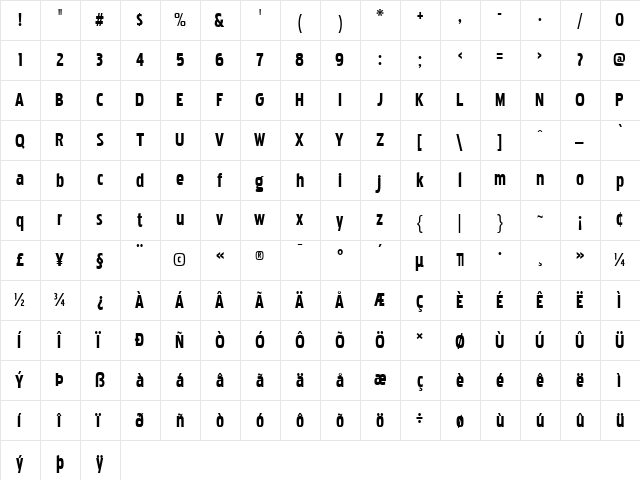
Pakenham Cnd Bold
Design Context for Pakenham Cnd Typeface
Pakenham Cnd takes a measured approach to typography — its balanced proportions and neutral character make it a reliable workhorse for both digital and print work. The heavy weight commands attention and anchors typographic hierarchies.